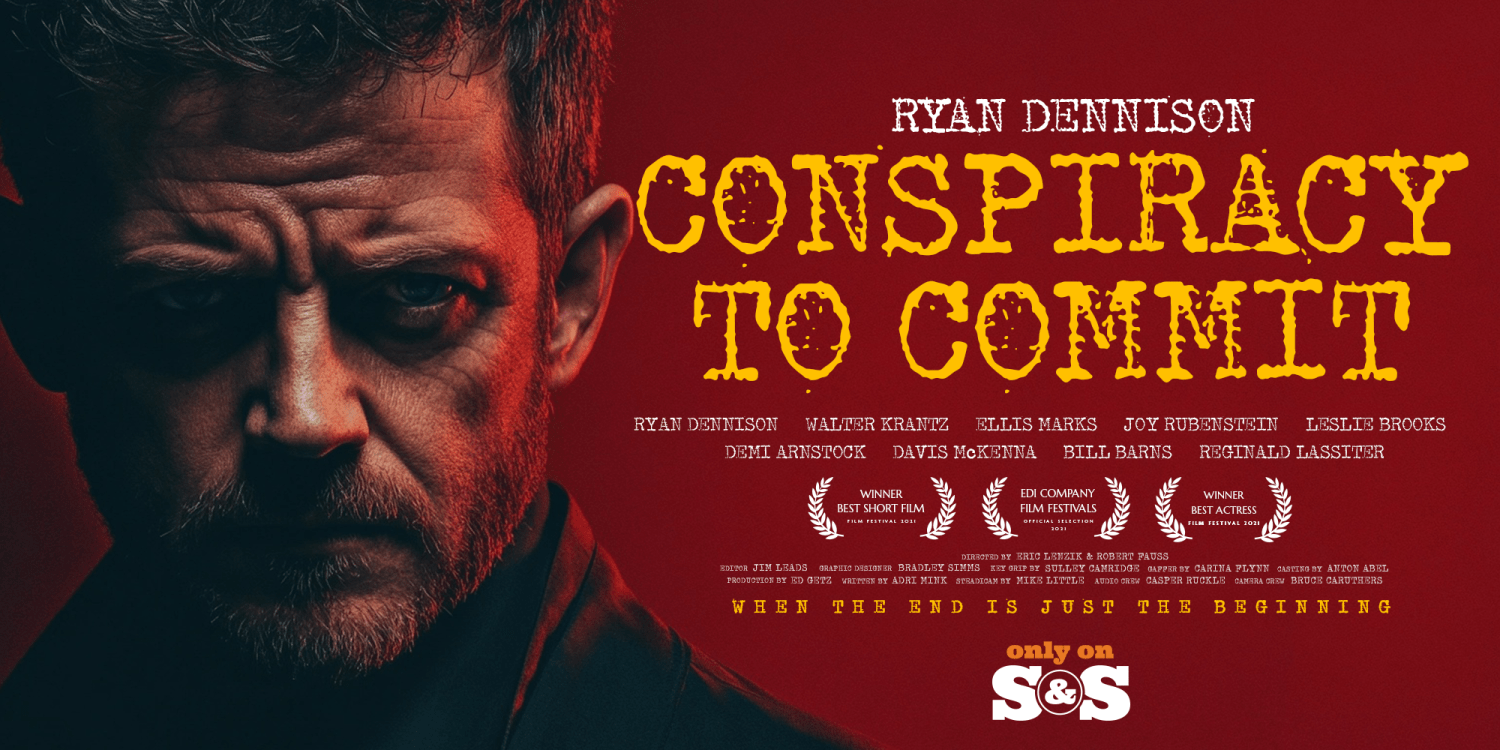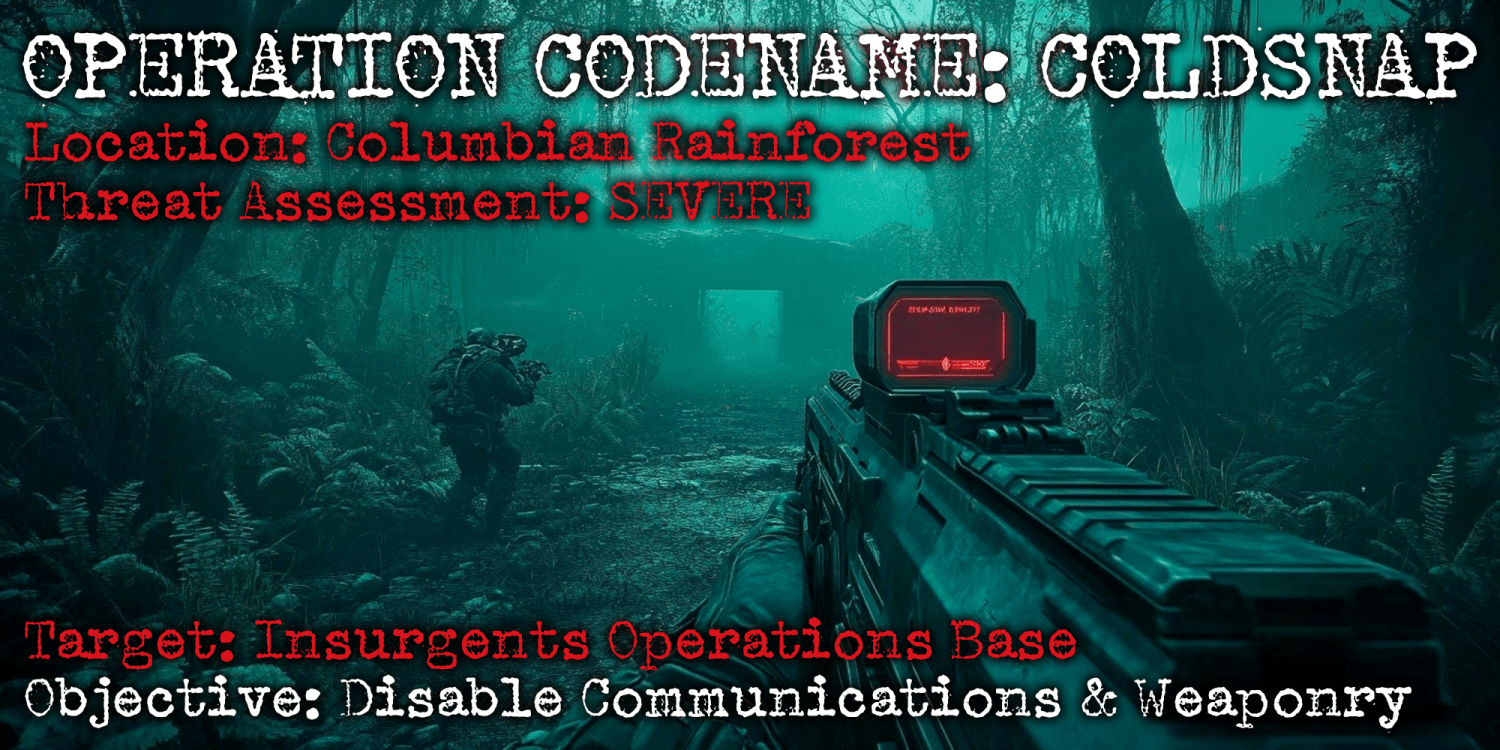
About Royal Portasear
Royal Portasear brings the unique distressed look of a rummage sale find to the digital age, that of a old Sears Portable typewriter. Royal Portasear maintains the tooth and grit of its as-is discovered condition without any cleaning – old typewriter,…